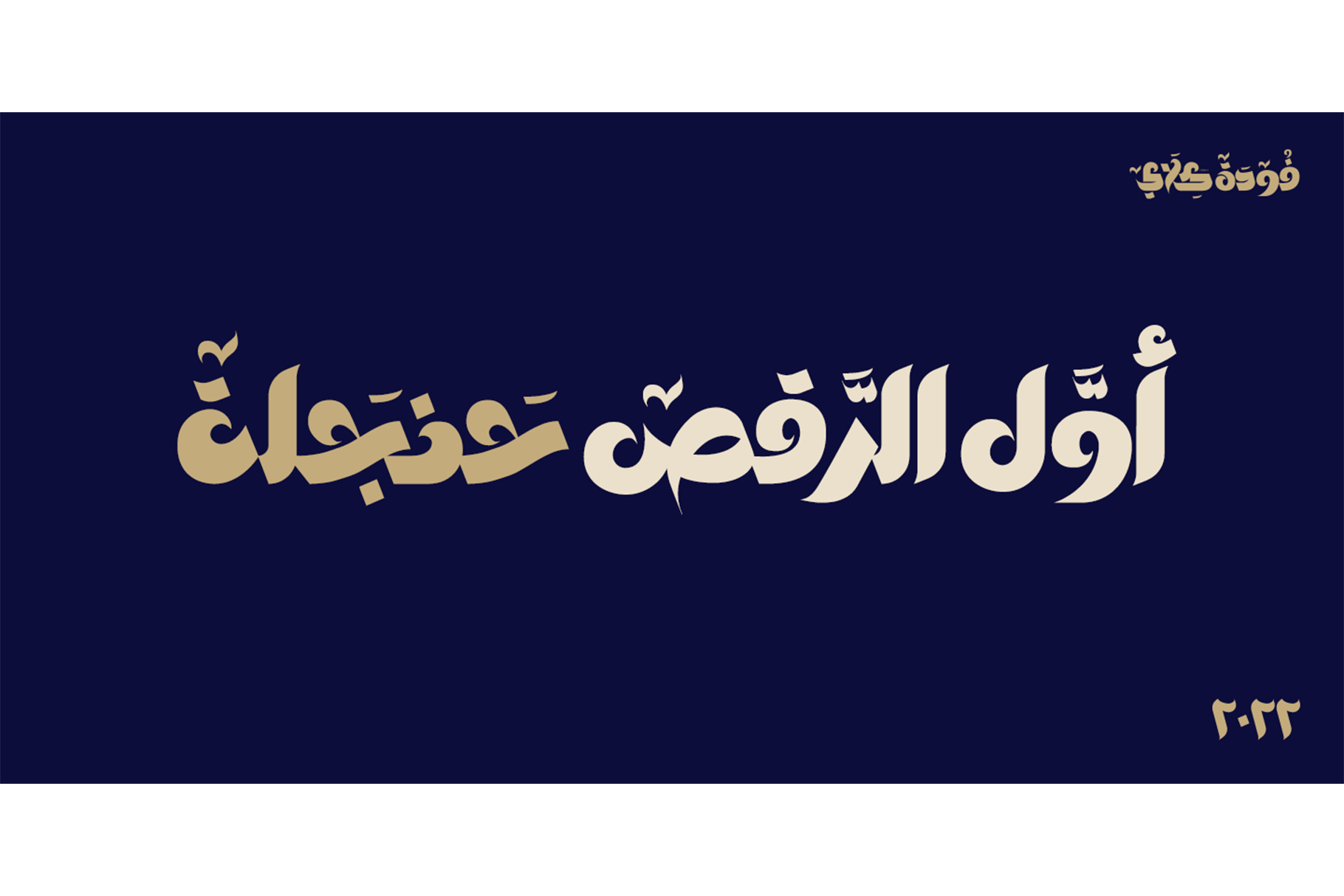
Foda Klay Font
Foda Klay is a modern Arabic typeface that offers a large number of glyphs and ligatures. Foda Klay is a perfect choice for Logo designs, branding, Clothing , packaging, headings, advertising, and more.